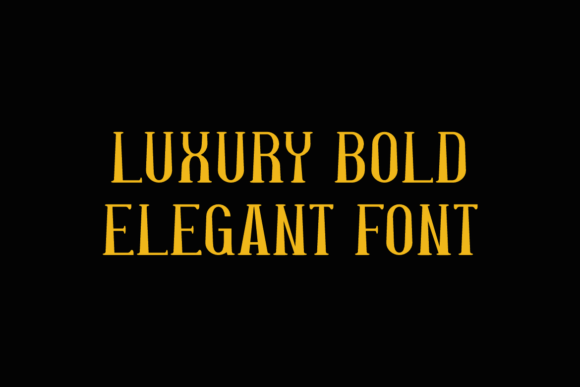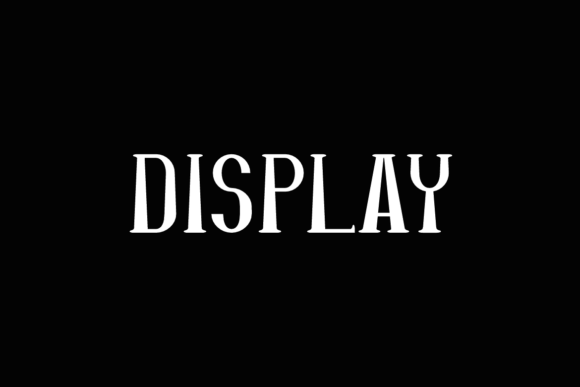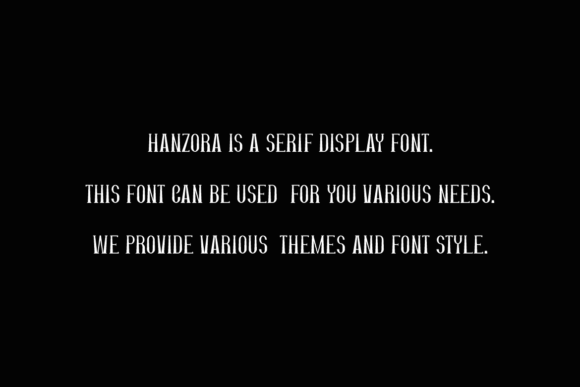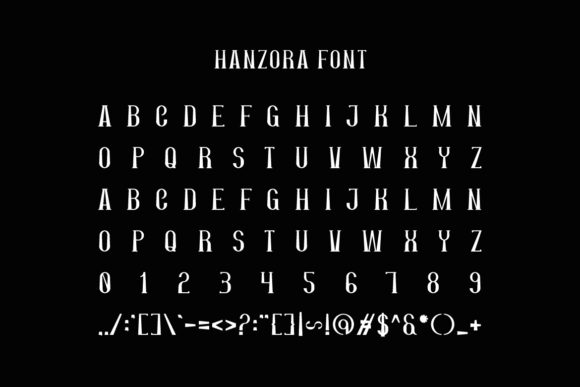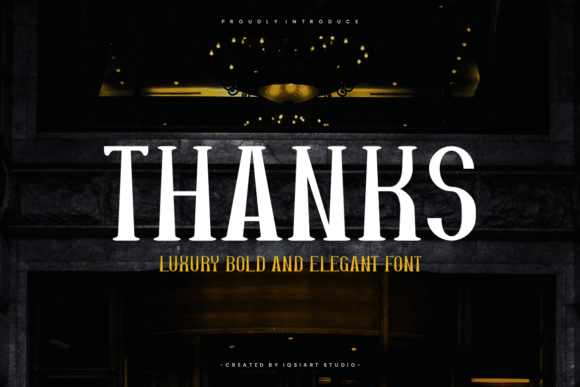
Introducing Hanzora Font: The Epitome of Elegance and Sophistication
In the realm of typography, few fonts manage to strike a balance between classic elegance and modern refinement. Hanzora Font, however, stands out as a beacon of sophistication, blending the timeless charm of serif fonts with the sleekness of contemporary design. This exquisite font is designed to elevate any project, whether it’s an editorial layout, branding campaign, invitation, or upscale packaging, with its polished and confident tone.
The Characteristics of Hanzora Font
Hanzora Font boasts a range of distinctive features that set it apart from other serif fonts. Its high-contrast strokes lend a sense of drama and elegance, while its graceful curves add a touch of softness and approachability. The finely tuned serifs provide a level of sophistication and refinement, making Hanzora perfect for projects that demand a high level of professionalism.
Timeless Luxury and Professionalism
One of the key benefits of Hanzora Font is its ability to convey a sense of timeless luxury and professionalism. Its classic design ensures that it remains relevant and stylish, even as design trends evolve. This makes it an excellent choice for brands and designers looking to create a lasting impression. Whether you’re working on a luxury brand campaign, a high-end editorial project, or a bespoke invitation, Hanzora Font is sure to impress.
Versatility and Memorability
Despite its elegant and refined appearance, Hanzora Font is surprisingly versatile. Its balanced proportions and subtle details make it suitable for a wide range of applications, from body text to headlines. Moreover, its unique blend of classic and modern elements ensures that it remains memorable, helping to create a lasting impression on readers and viewers.
Ideal Applications for Hanzora Font
So, where can you use Hanzora Font to make an impact? Here are a few ideas to get you started:
- Editorial Layouts: Use Hanzora Font to add a touch of sophistication to your magazine, newspaper, or online publication.
- Branding: Create a lasting impression with Hanzora Font, perfect for luxury brands, high-end products, and professional services.
- Invitations: Make your invitations stand out with Hanzora Font, ideal for weddings, galas, and other high-end events.
- Upscale Packaging: Elevate your packaging design with Hanzora Font, perfect for luxury goods, premium products, and bespoke items.
Why Choose Hanzora Font?
With so many fonts available, why choose Hanzora Font? Here are a few compelling reasons:
- Elegance: Hanzora Font exudes a sense of classic elegance and sophistication.
- Versatility: Its balanced proportions and subtle details make it suitable for a wide range of applications.
- Memorability: Its unique blend of classic and modern elements ensures that it remains memorable.
- Professionalism: Hanzora Font conveys a sense of professionalism and luxury, perfect for high-end projects.
In conclusion, Hanzora Font is a sophisticated serif font that offers the perfect blend of classic elegance and modern refinement. Its high-contrast strokes, graceful curves, and finely tuned serifs make it an excellent choice for designers and crafters looking to elevate their projects. With its versatility, memorability, and professionalism, Hanzora Font is sure to become a staple in your typography arsenal. Whether you’re working on an editorial layout, branding campaign, invitation, or upscale packaging, Hanzora Font is the perfect choice for creating a lasting impression.